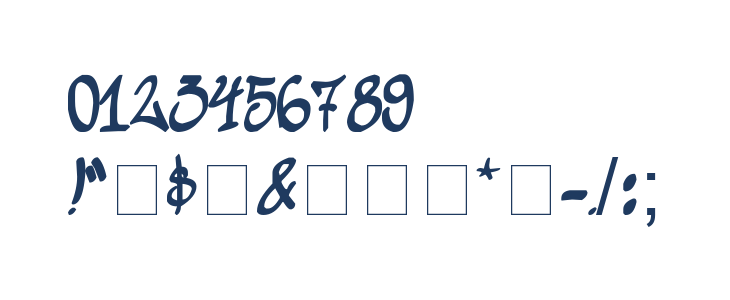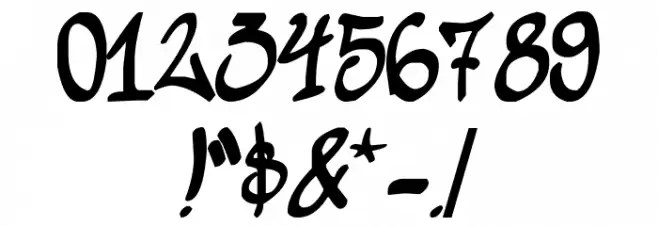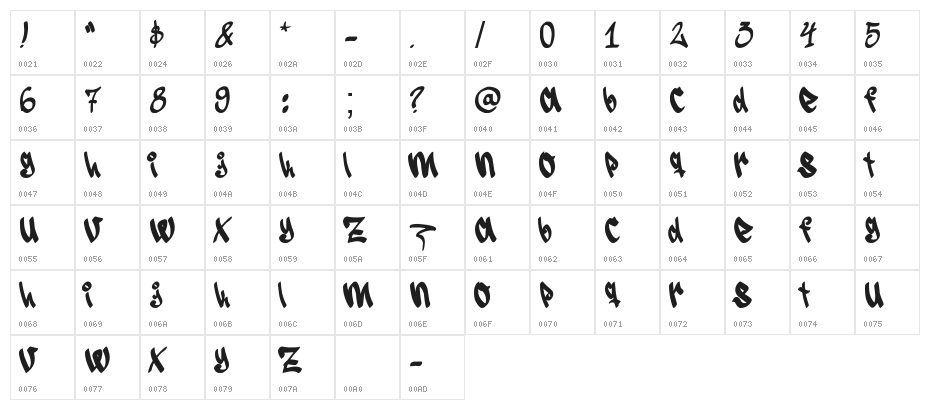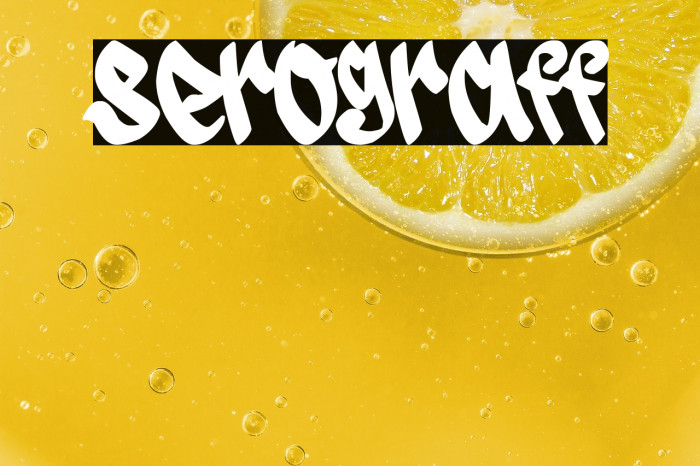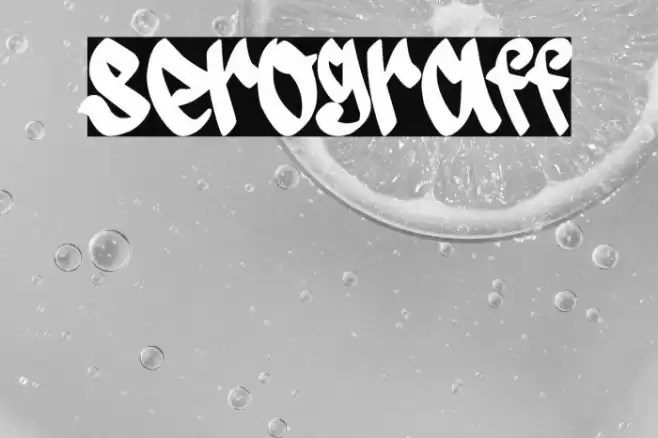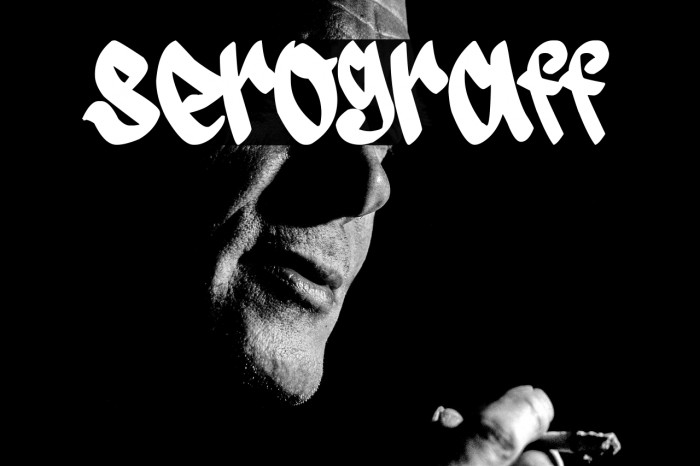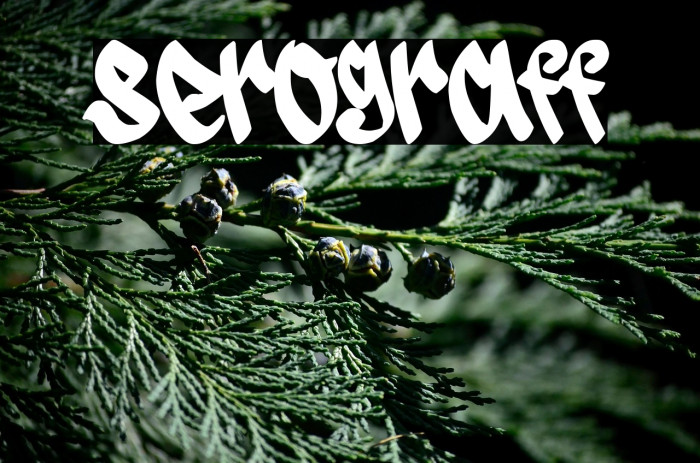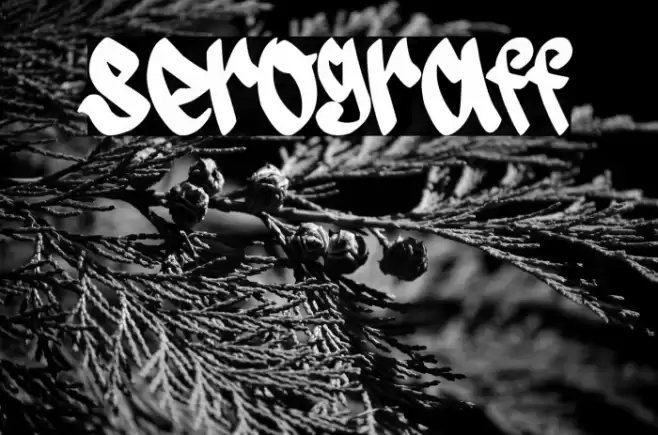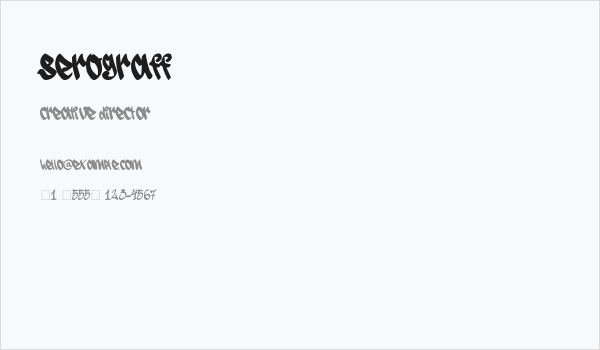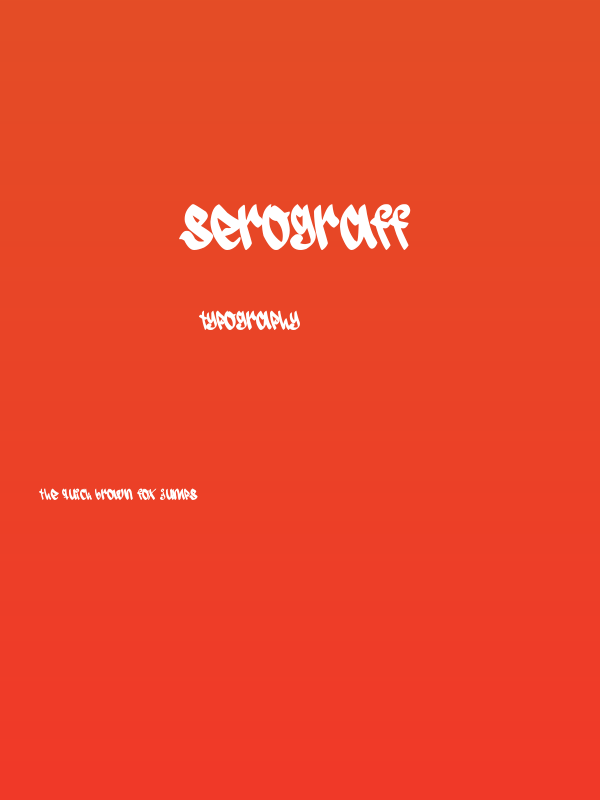
Serograff Font
Serograff Description
This font exudes a bold and dynamic graffiti style, characterized by its thick, sweeping strokes and energetic curves. The letters are highly stylized, with an urban flair that suggests movement and creativity. Each character is unique, yet they all maintain a cohesive look that ties the alphabet together. The uppercase and lowercase letters share a similar aesthetic, with exaggerated loops and angles that give the font a playful yet edgy appearance. Numbers and special characters are equally expressive, making this font ideal for projects that require a strong visual impact.
| Overall Style | Modern, Urban |
| Proposed Projects | Perfect for street art designs, music album covers, urban-themed posters, and edgy branding projects. |